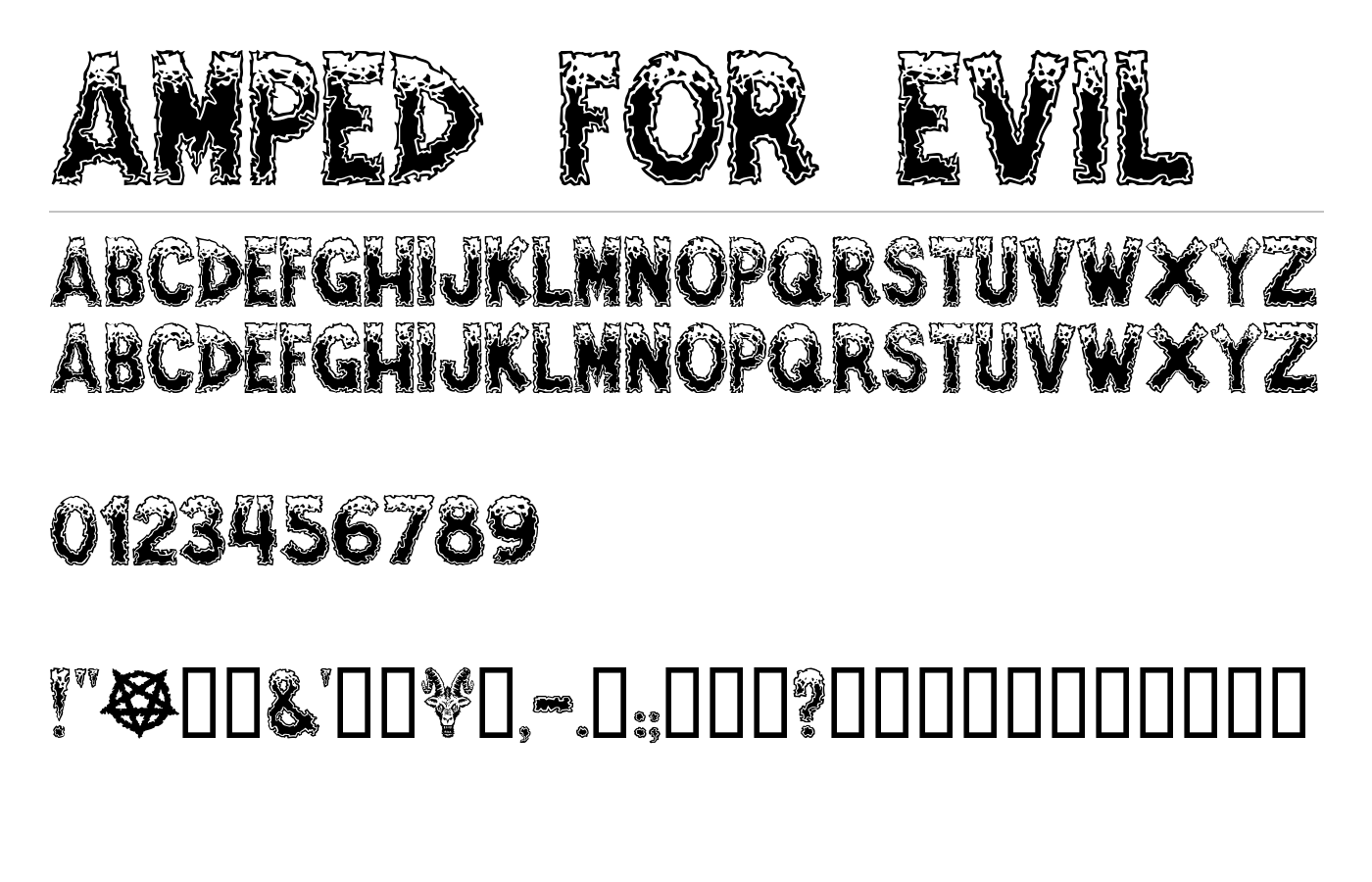
Amped For Evil is a bold, decorative display font characterized by jagged, irregular edges that evoke a rough, eerie aesthetic. Its uppercase letters boast a heavy weight with a textured, almost distressed outline, perfect for creating a spooky or horror-themed vibe. This font works best in headlines, posters, or branding that aims to convey a dark, edgy, or Halloween-inspired mood, making it eye-catching and memorable in festive or themed designs.
Amped For Evil Font